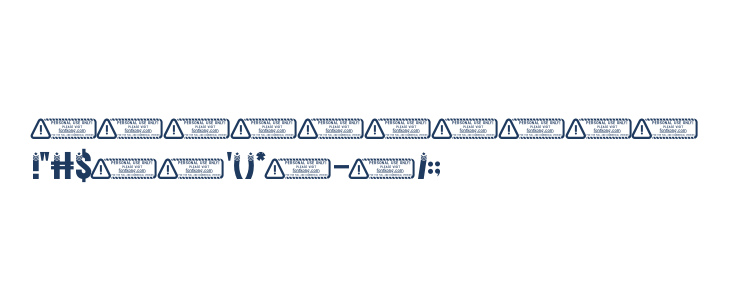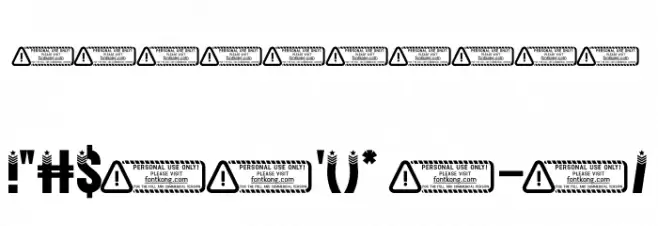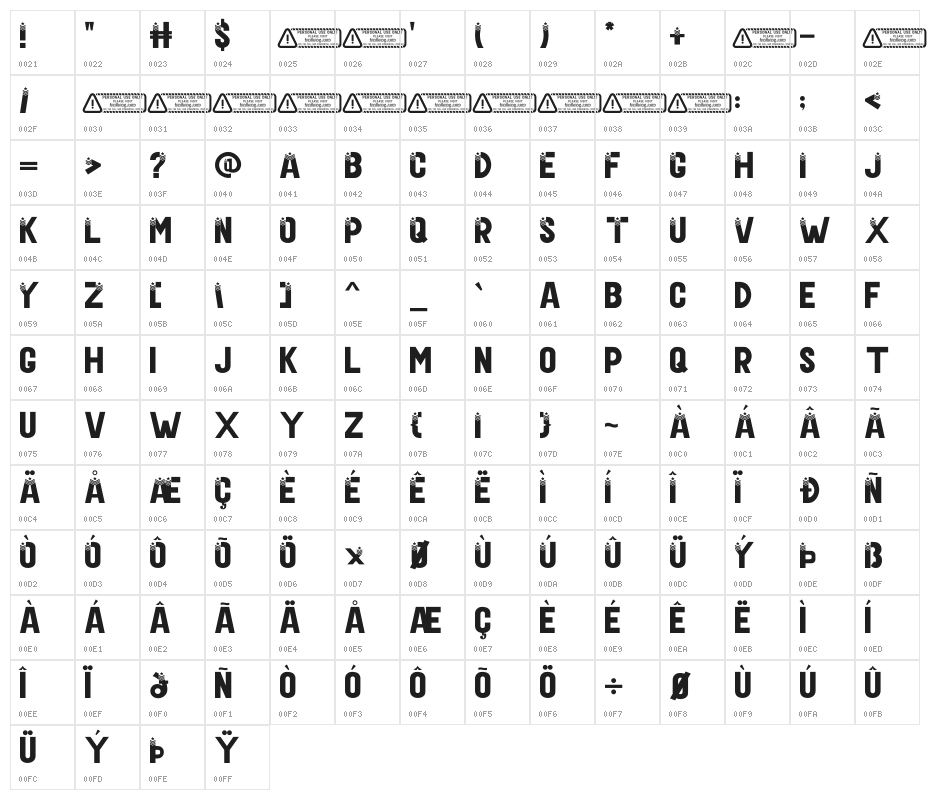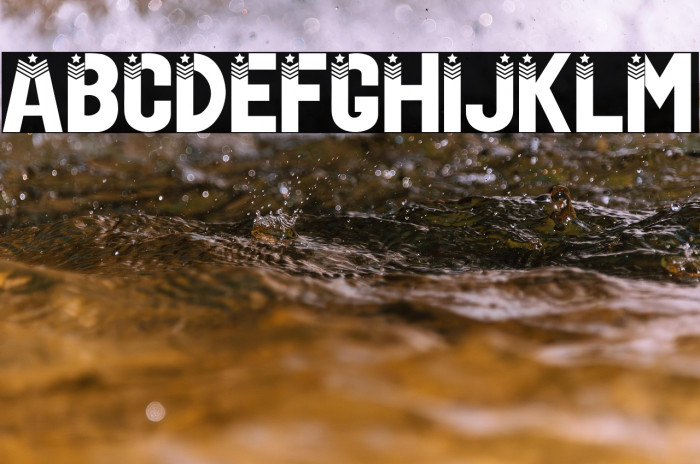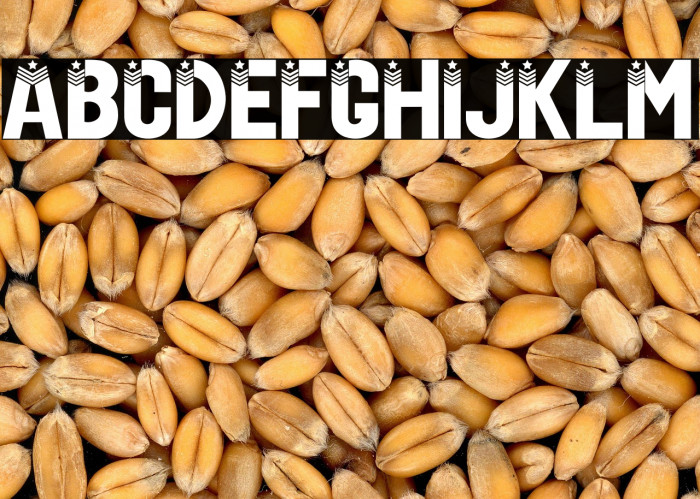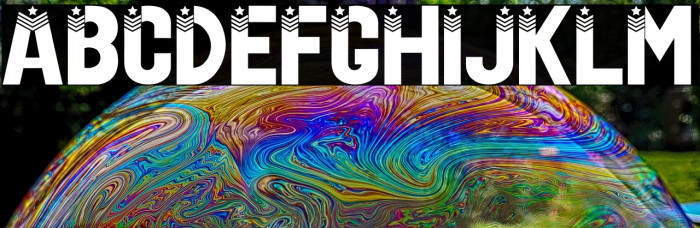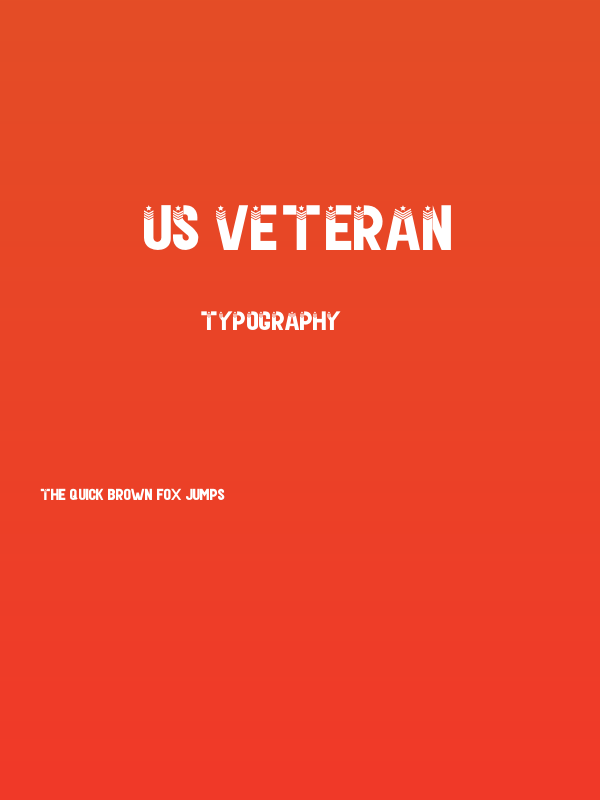
US Veteran Font
US Veteran Description
This font features a bold, military-inspired design with strong geometric shapes and a distinctive decorative element resembling chevrons or stripes at the top of each letter. The uppercase letters are particularly striking, with a solid, commanding presence that suggests strength and authority. The font is highly legible, with clear, well-defined lines that make it suitable for impactful headlines or titles. The special characters maintain the same bold style, ensuring consistency across all uses. This font's unique style makes it ideal for projects that require a sense of power and discipline.
| Proposed Projects | Ideal for military-themed posters, logos, and branding materials that require a strong, authoritative presence. |